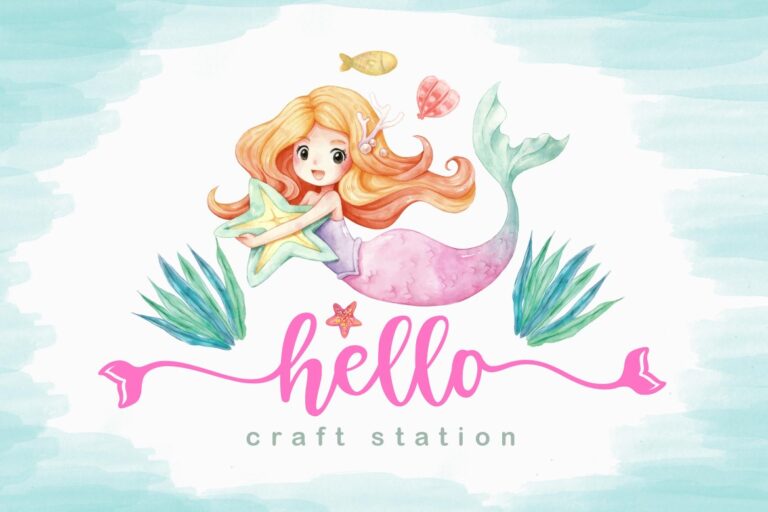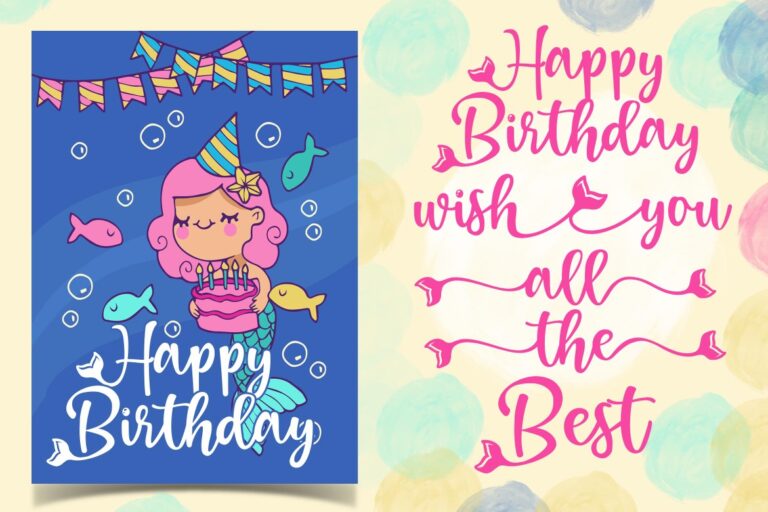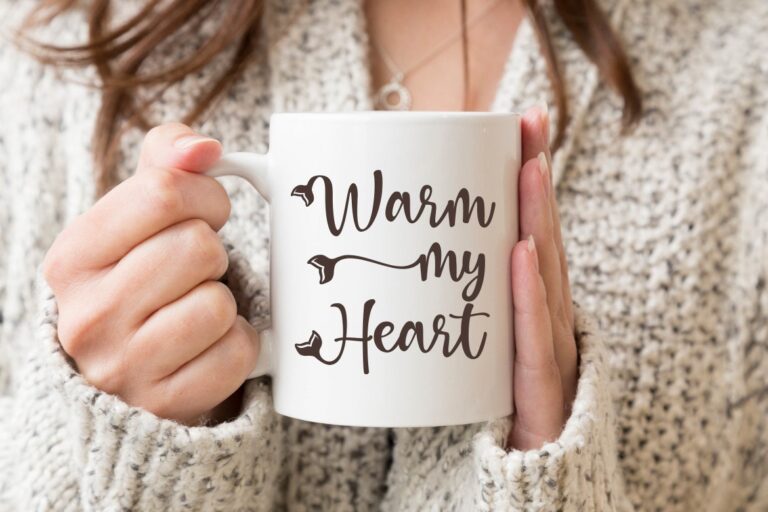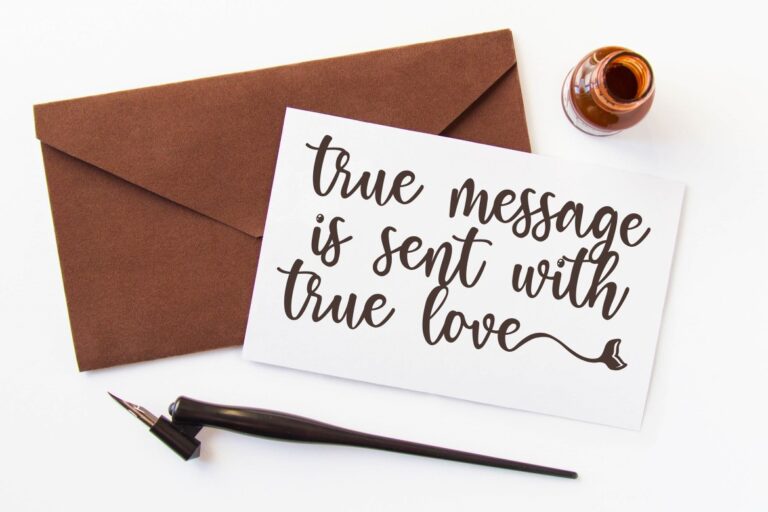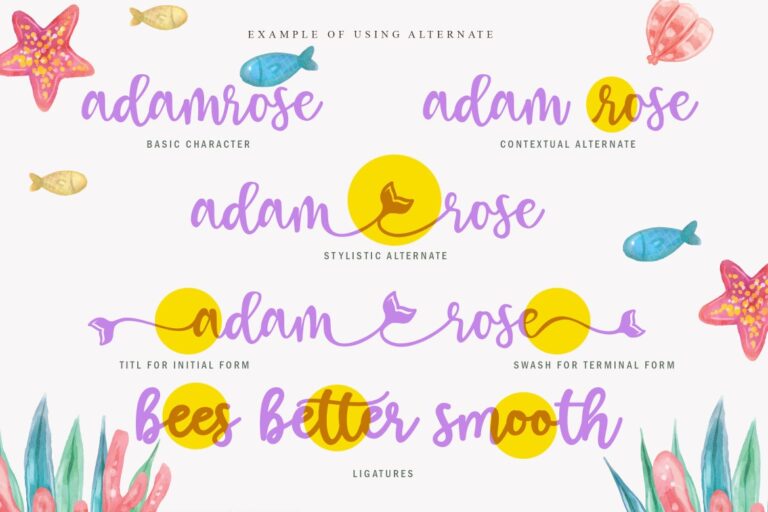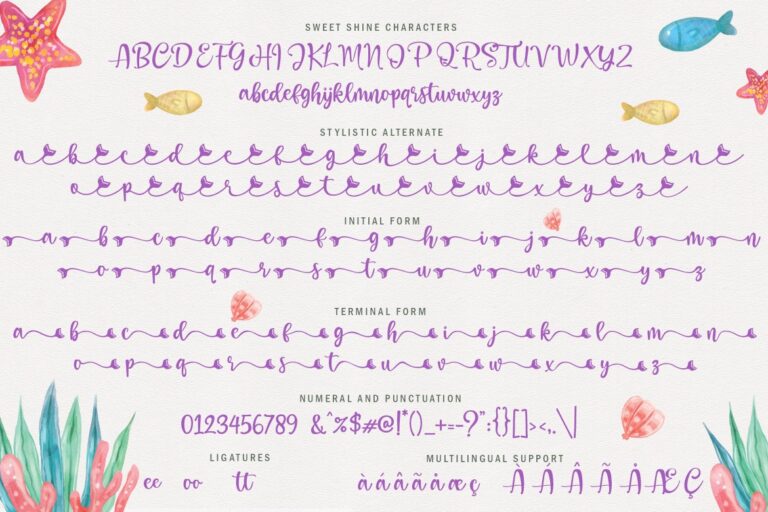
Mermaid Stories
Mermaid Stories is Beautiful Handwrittern Script.
When you had a craft project, wedding project, modern clothing, or a company that need beautiful font for advertisement, this font is right for you.
Mermaid Stories has many alternates that let you choose the best lettering composition.
- Stylistic alternate, Stylistic set , , swash , titling and some ligatures.
- Support to basic multilingual like English, Spanish, portguese, german, Italian, French and polish